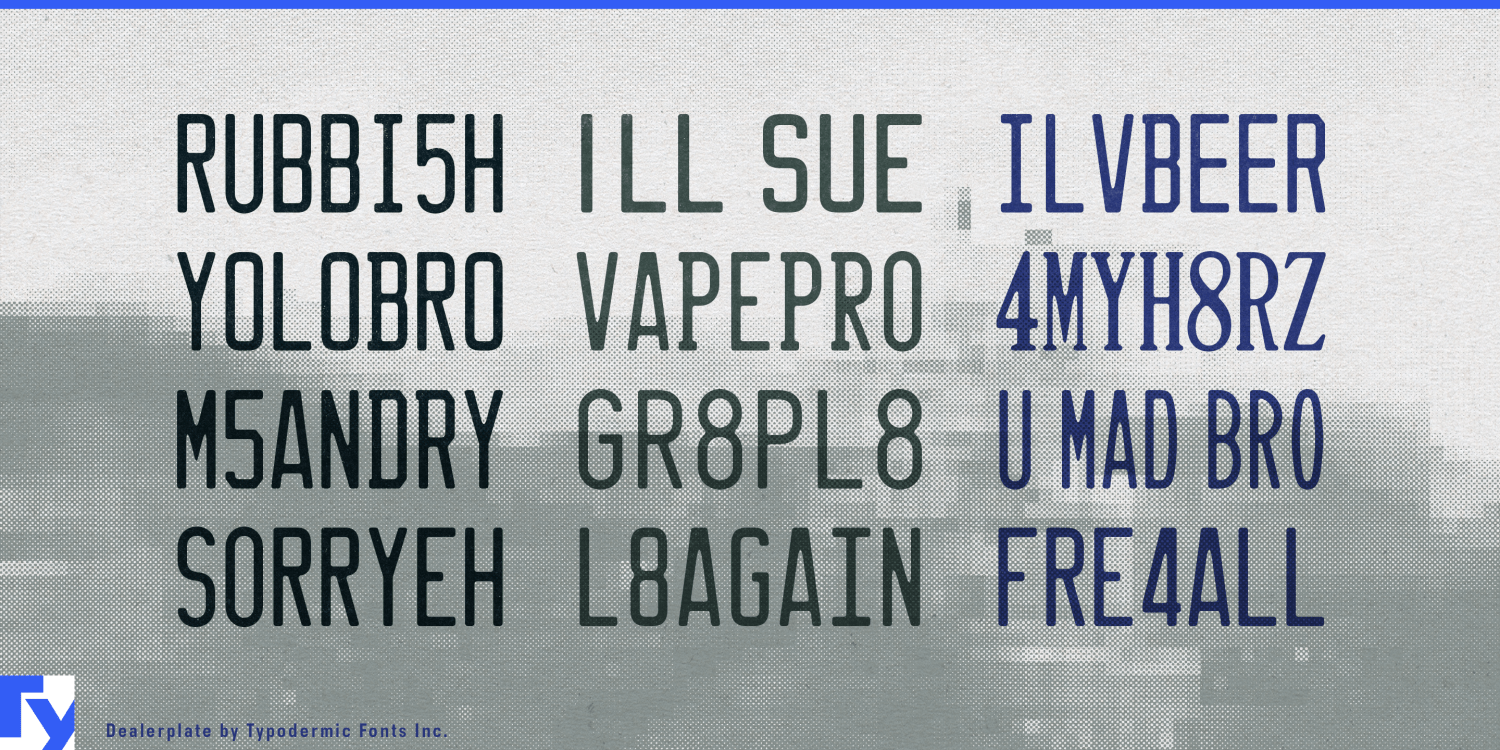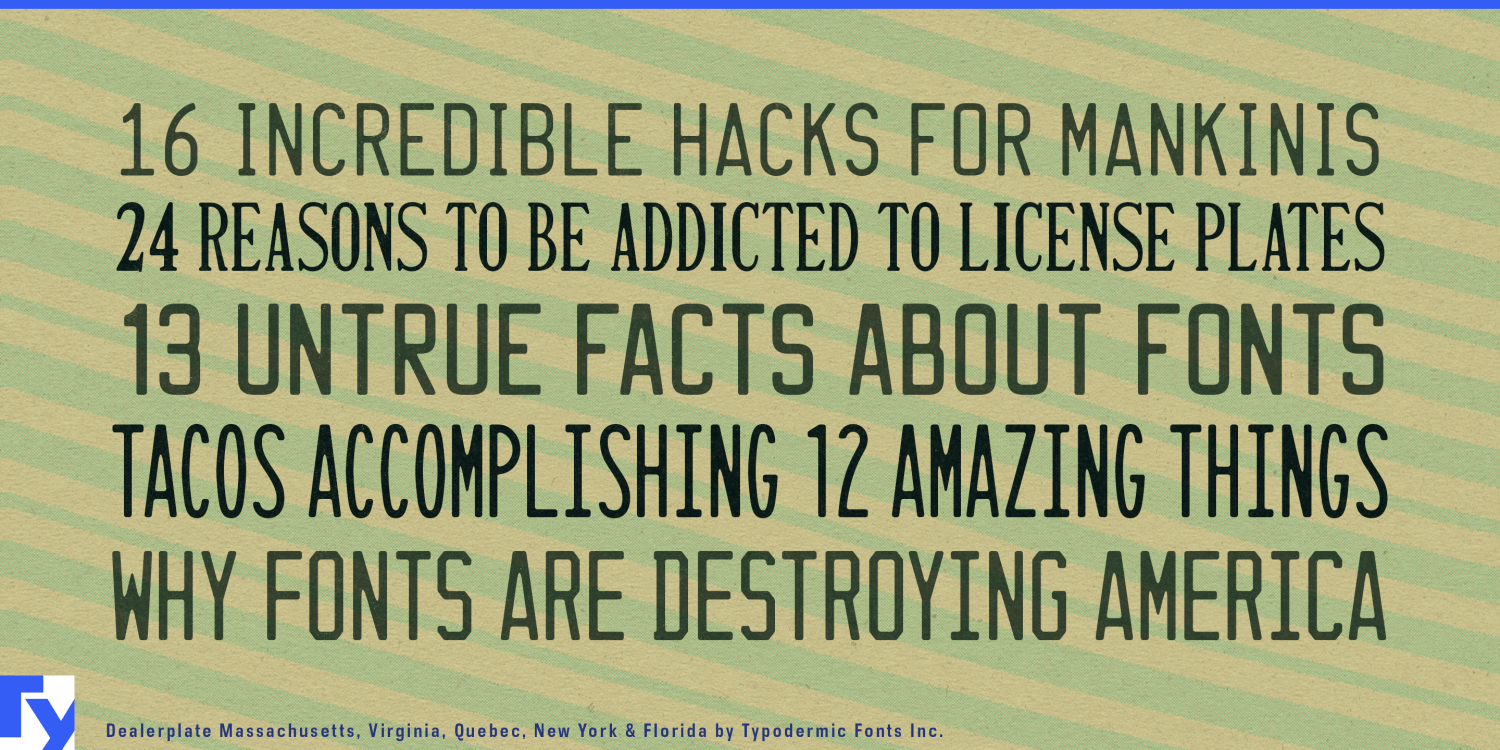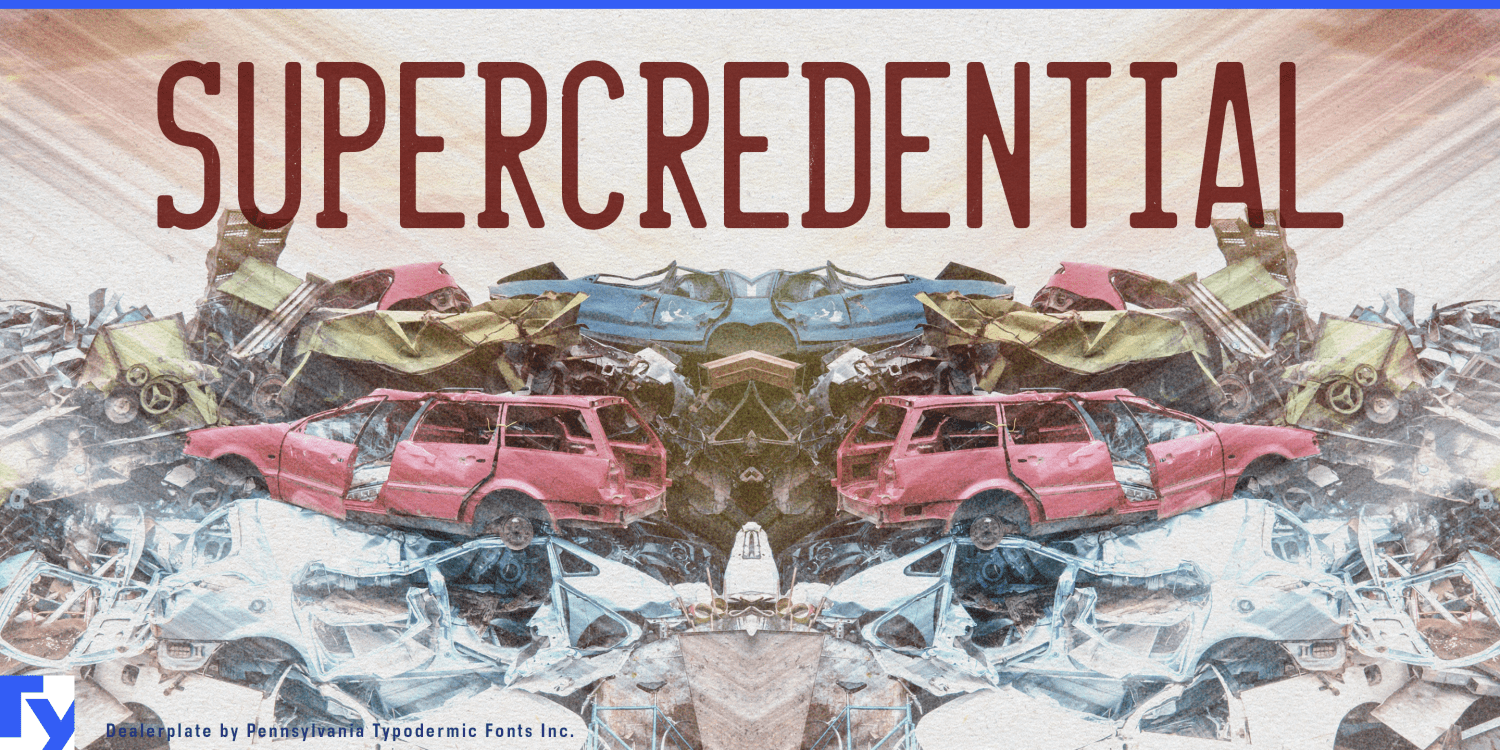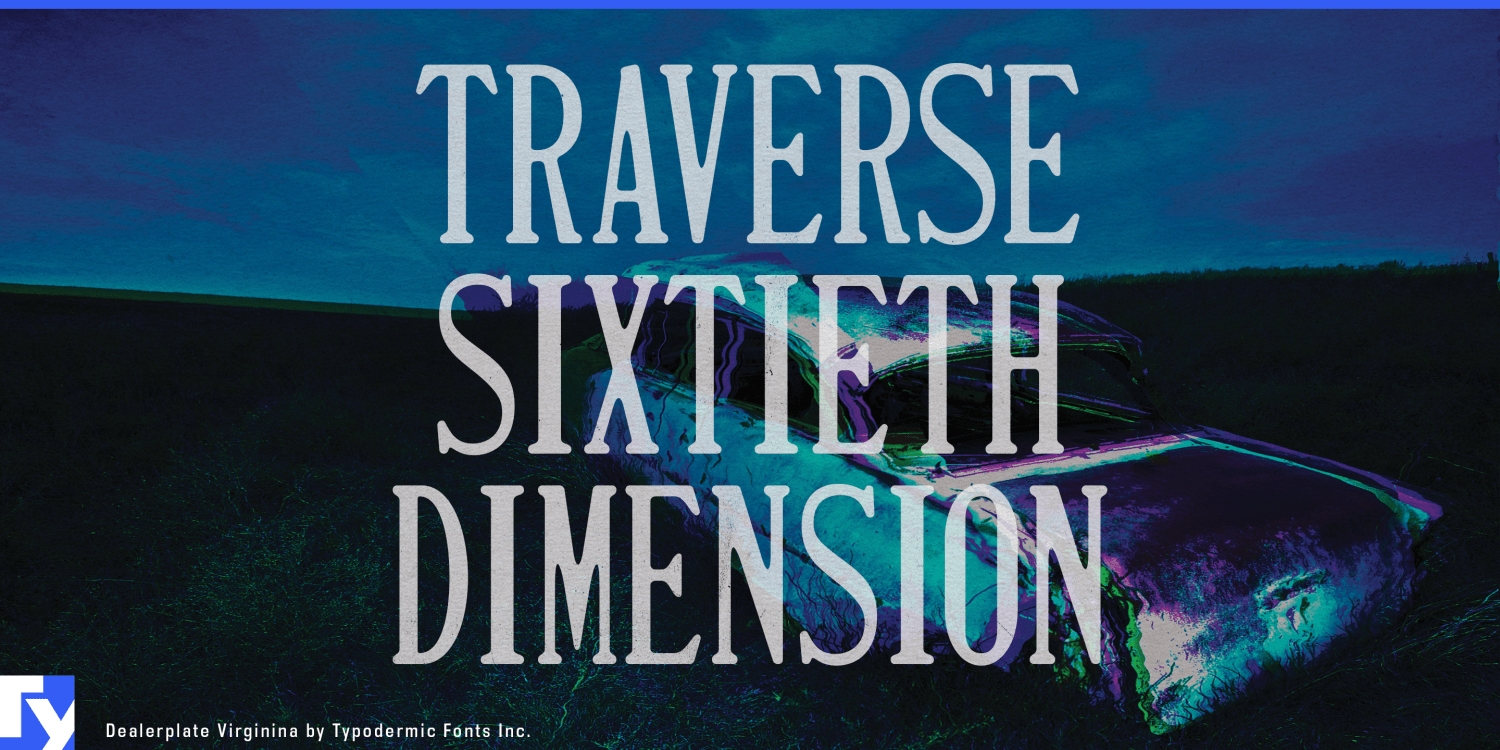
About Dealerplate
Rev up your design game with Dealerplate, the typeface that brings the authentic license plate style to your projects. With 17 embossed designs from states and provinces across the United States and Canada, you can infuse your work with the rugged charm…